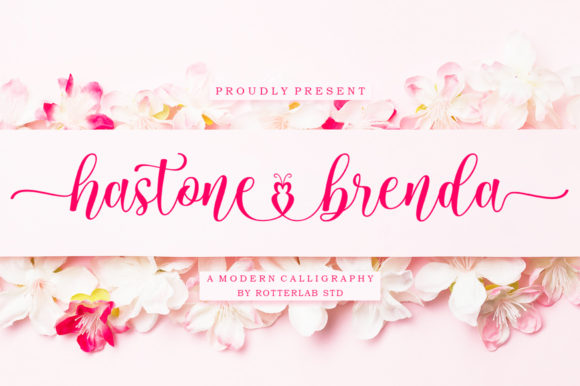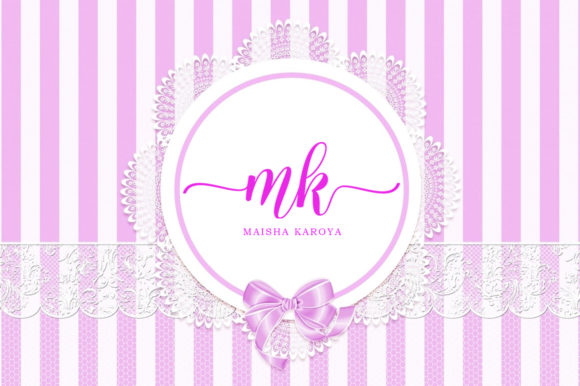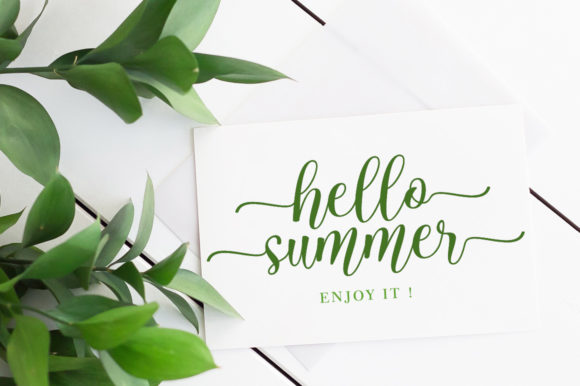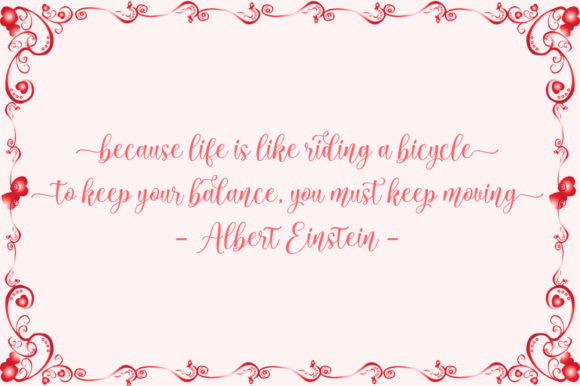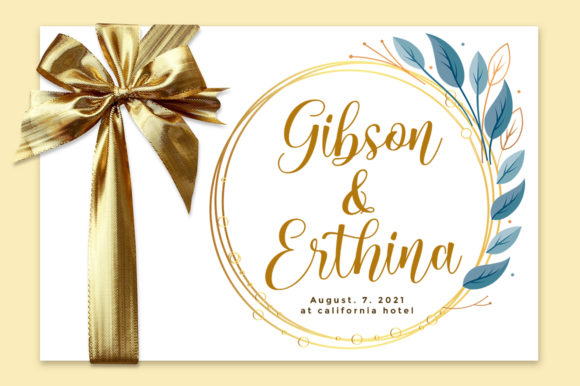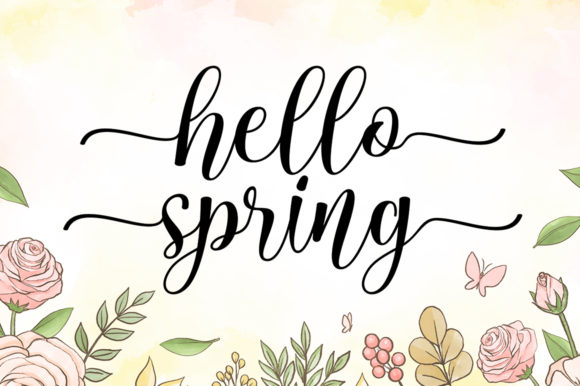
About Hastone Brenda Font
Hastone Brenda feels flowing and elegant. It looks beautiful on wedding invitations, thank you cards, quotes, greeting cards, logos, business cards and every other design which needs a handwritten touch.